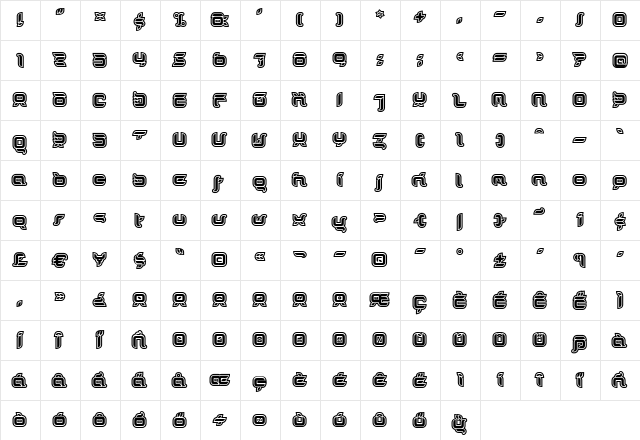
DorisOrange Regular
Design Context for DorisOrange Typeface
DorisOrange is a composed and adaptable typeface that performs quietly and consistently across a wide range of design contexts.